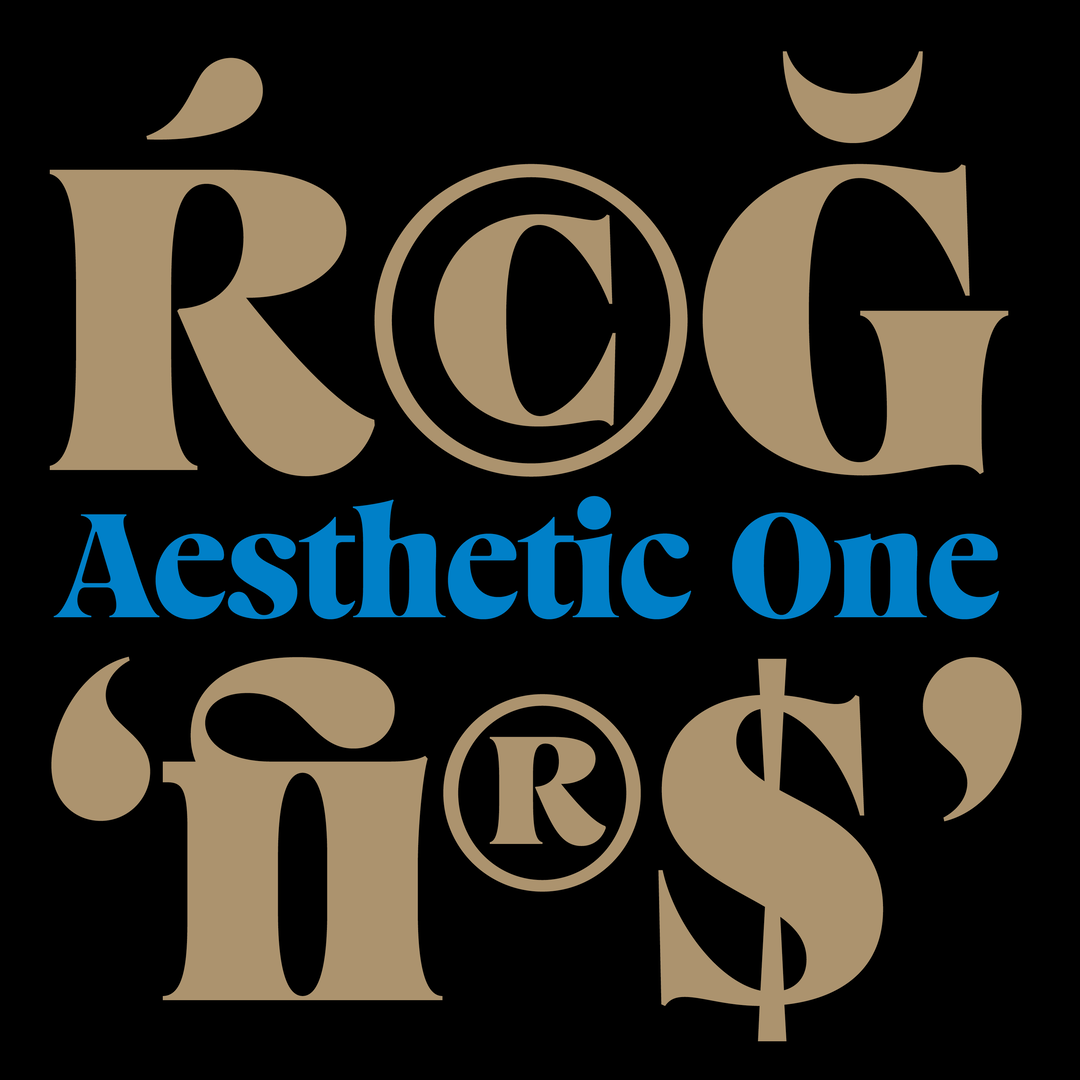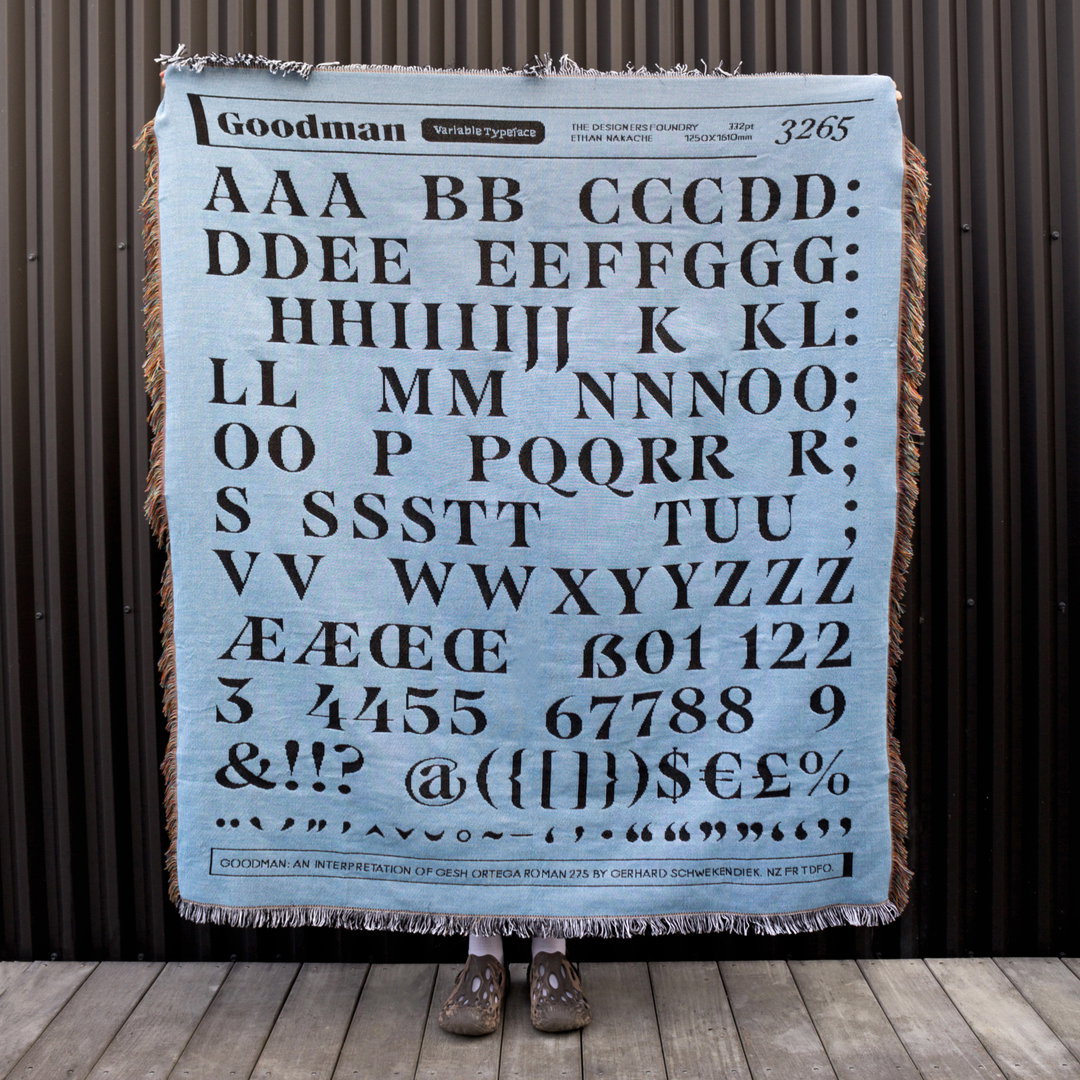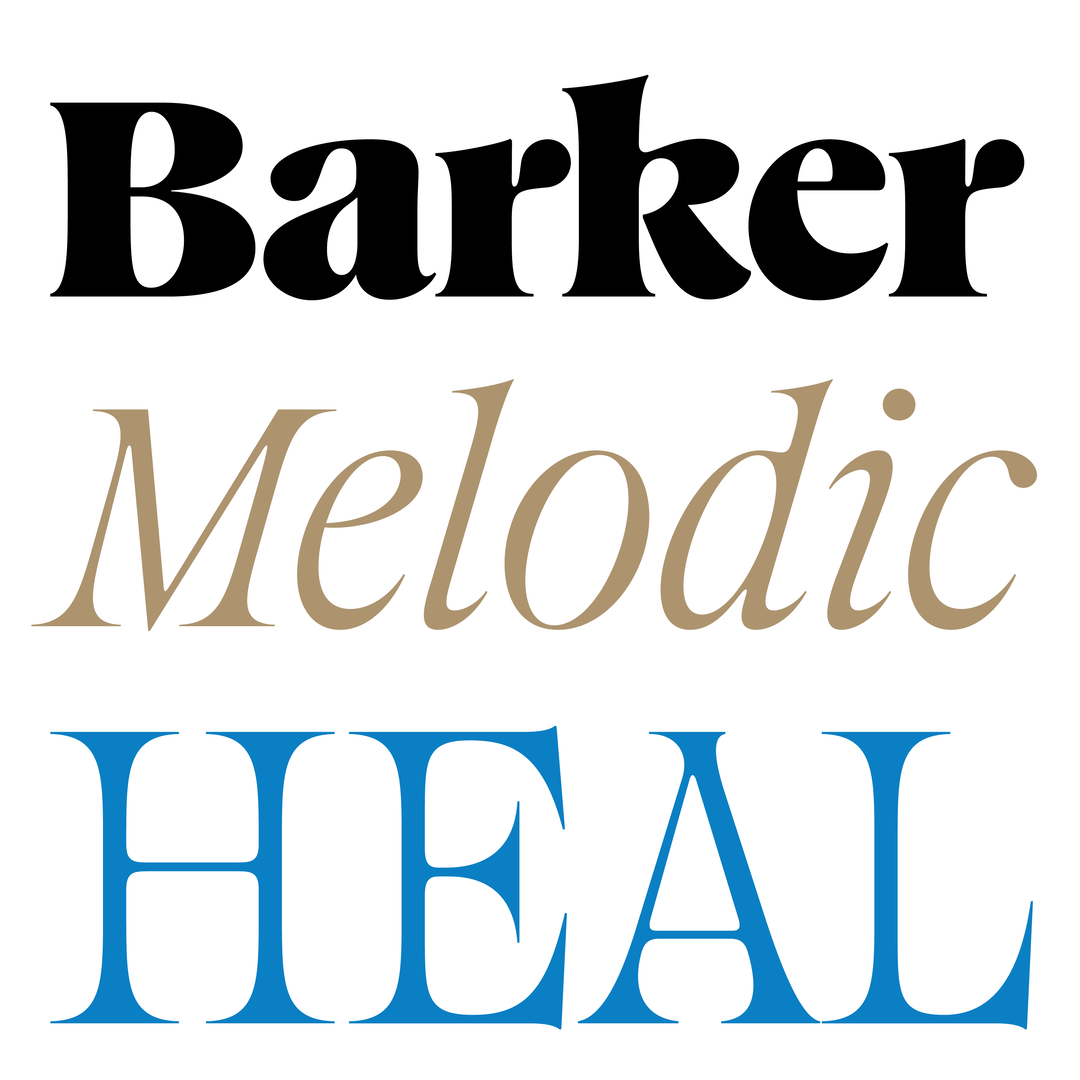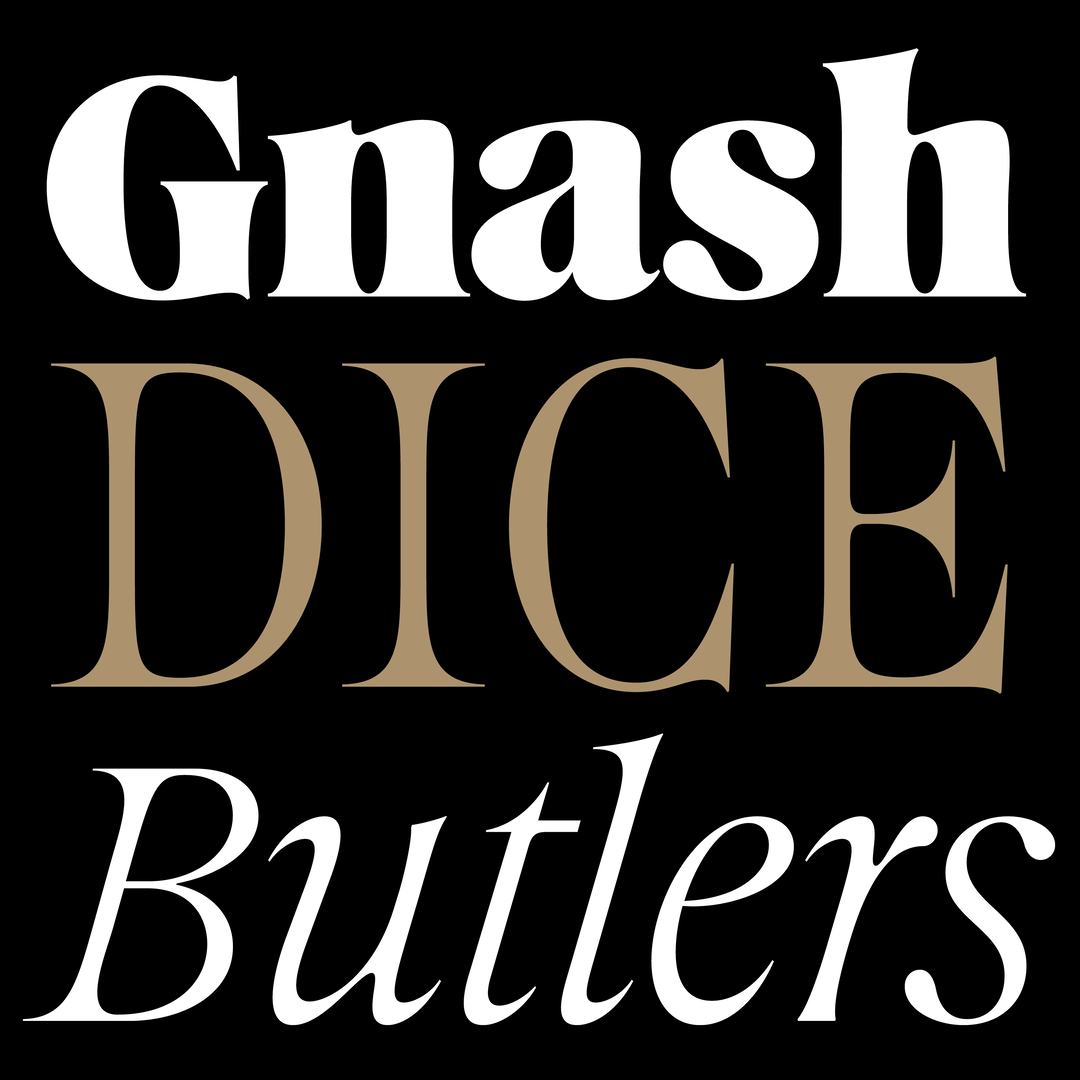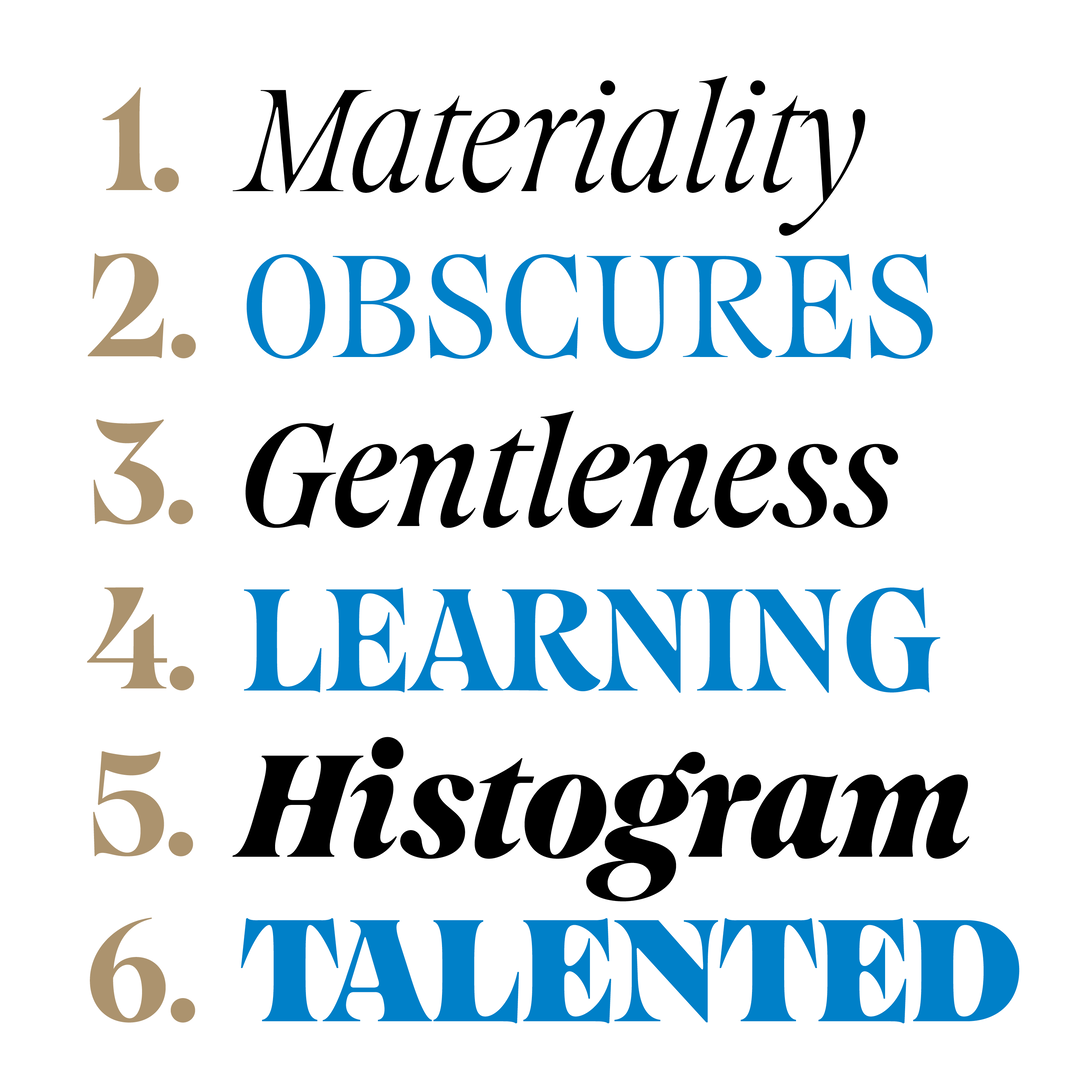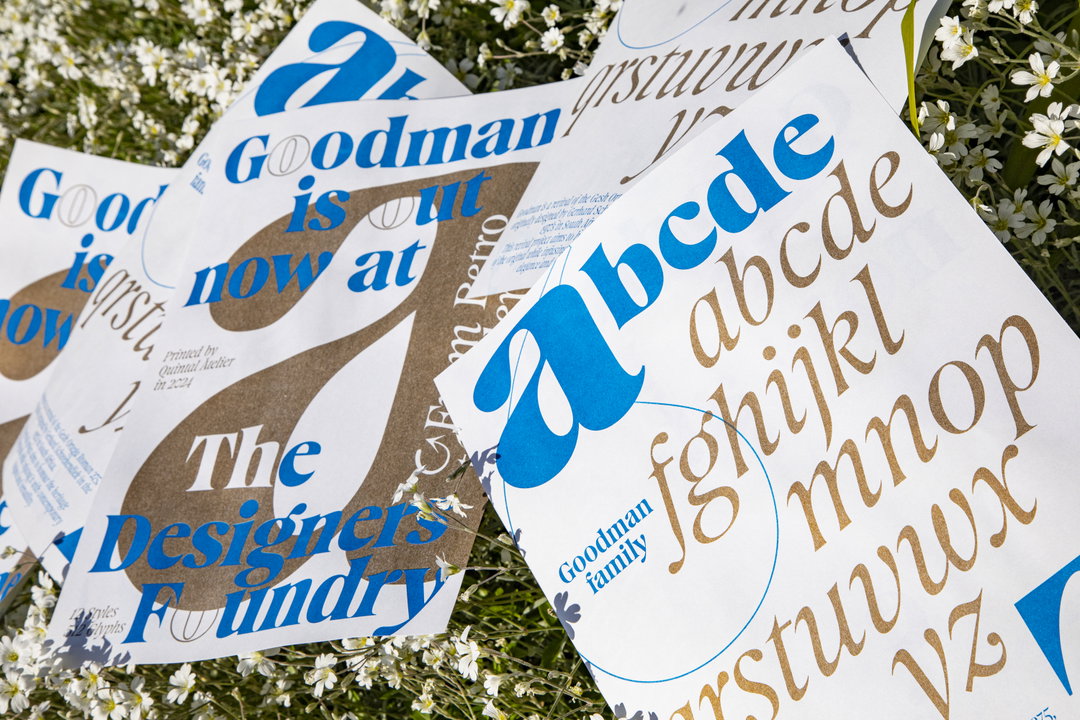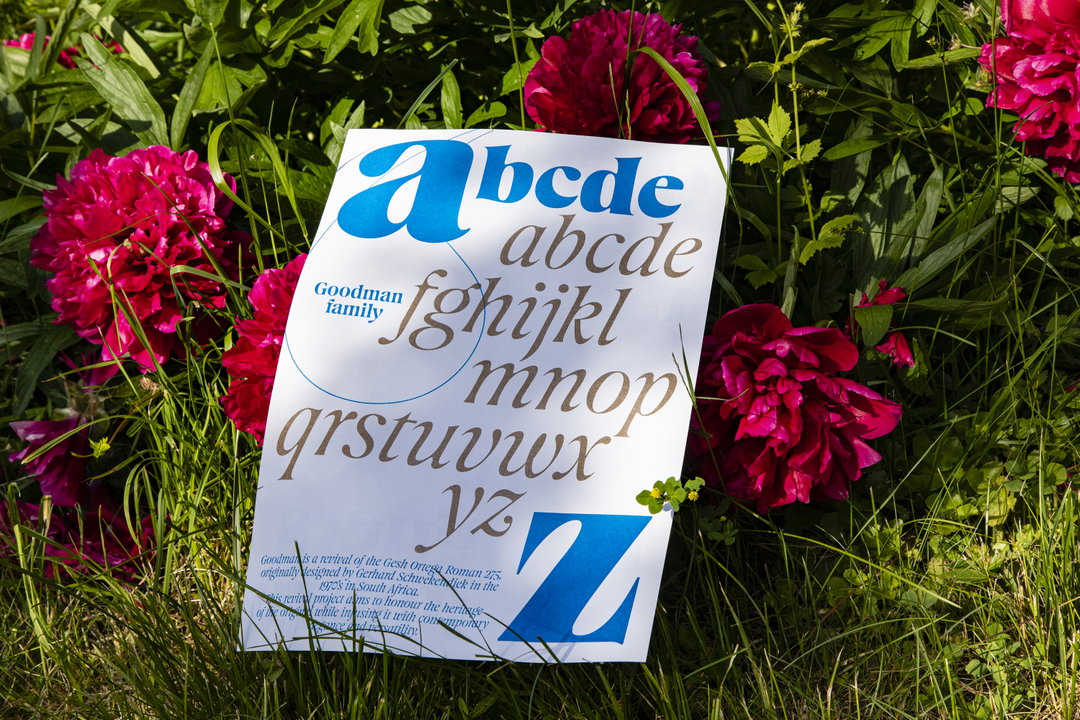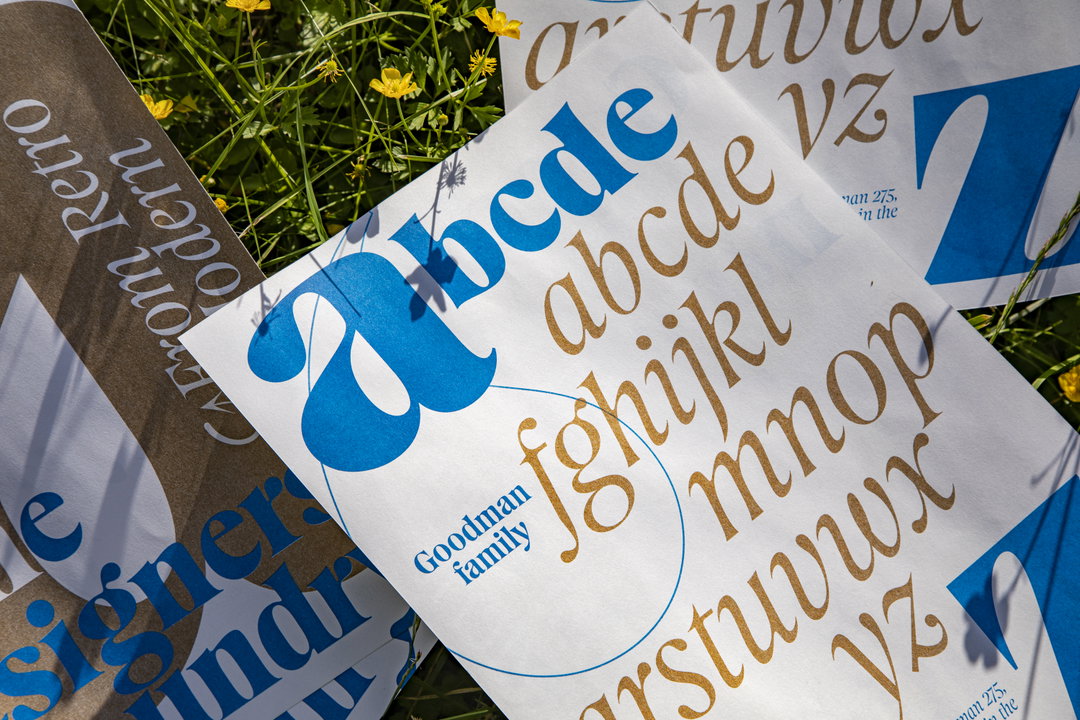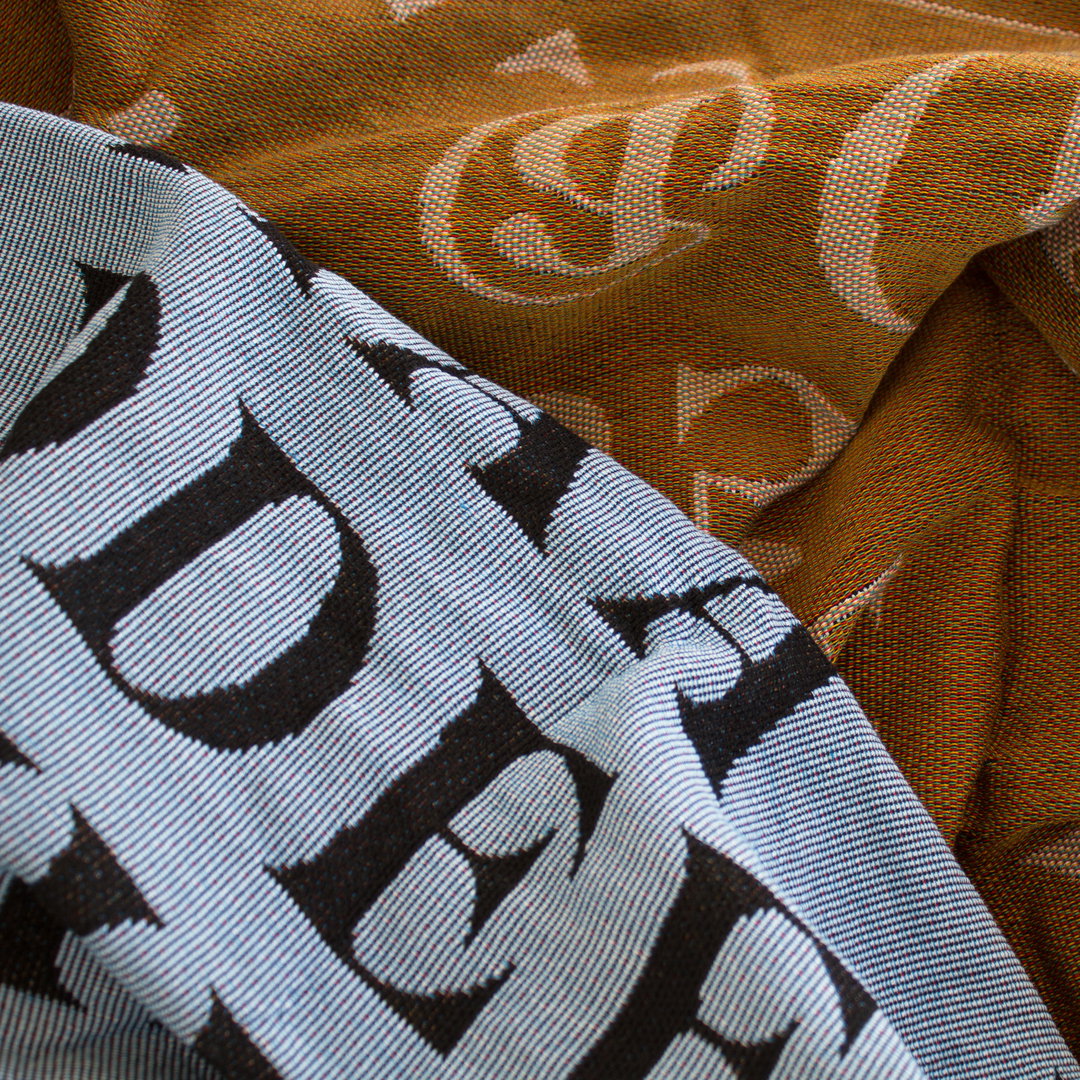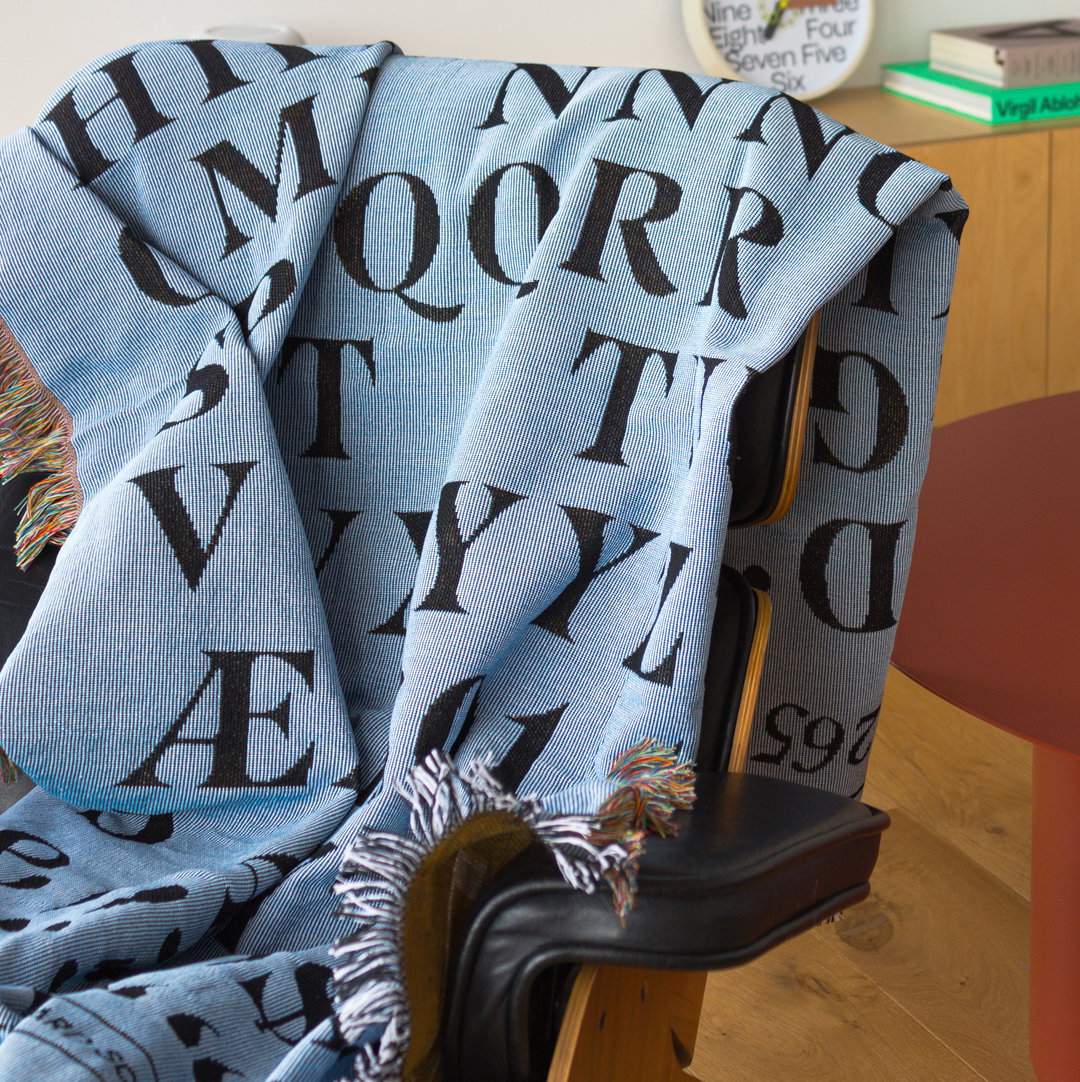
Ethan Nakache brings a 1970s typeface back from the dead, to “add something to the serif genre”
Explaining Goodman, the French designer tells us why reviving a typeface involves a lot of decision making: “You need to focus on what to keep, and what to drop.”
When Ethan Nakache’s friend showed him the Gesh Ortega Roman 275 typeface from 1972, he instantly knew it was “too beautiful to be all but dead”. Originally designed by Gerhard Schwekendiek for Berthold, the usage and documentation of the typeface online is “somewhat scarce”, but Daniel had a vision. “I thought it could really add something to the serif genre if revived. It had everything I love in the serif realm: very generous curves, unusual shapes, yet a very sensible feeling, and even some spiky serifs to complete the package,” he says. With support from The Designers Foundry founder, Daniel McQueen, Ethan has created Goodman, complete with six weights, with matching italics in a variable font format.
The project started over four years ago, at the beginning of the Covid pandemic. Ethan tells us that he wasn’t too much concerned with the commercial aspect to begin with, he was “mostly just glad to have a cool project to work on during that time”. But, Ethan also had to have some determination; Goodman did go against the grain of style back then. “During the design stage, graphic designers were heavily favouring sans-serifs,” says Ethan. “It was an era of high ‘blanding’, but noticing a small resurgence ‘goopy’ and Art Nouveau style serifs motivated me to keep going and get Goodman out there since I had already started on it.” A release of Goodman today is perfect timing, you might say, with the recent reinvigoration of love for serif typefaces.
Ethan says that reviving a typeface rests on one thing in particular: a lot of decision making. “You need to focus on what to keep and what to drop,” he says. “That’s what will give the feeling and shapes of the new typeface. It’s about picking out what you like, what’s still relevant today, and what’s not.” For Ethan, after trailing it with many sketches, it was the influence of the italics in lowercase that stood out, which he then highlighted through the various forms. “In other words, I’d say bring some inspiration and originality to a historical gem,” says Ethan. “It’s your interpretation of something that you already find greatness within.” So why did Ethan want to create so many weights and an italics version? “Versatility.” He continues: “While the source material was just one style, I wanted to enhance upon that and challenge myself by making a display typeface, something that was more usable, flexible, and ultimately going to ensure the longevity of Goodman.”
The Designers Foundry is well known for finding inventive ways of displaying their typefaces. In the past they’ve used clocks and even bricks, and Goodman was no exception – finding its way onto a series of Risograph prints, into a 3D video, and even printed on a blanket. On a practical level, this diversity of presentation is a means of promoting and showing the versatility of the typeface. But it’s also a way of having some fun “after a lot of serious work” and a way of celebrating a four-year project, says Ethan. The blanket evokes a dry-transfer sheet style design, paying homage to the era of Gesh Ortega Roman 275, while the Risograph (made in collaboration with Quintal Print House) was chosen for simply being a format that designers love, and one that’s good for experimenting with. However, the 3D video – made by Anthony Hernandez – stands in contrast to the type of physical products. “That was just a bit of selfish fun to do something quirky and slightly weird,” says Ethan. “It’s designed to be the display banner on The Designers Foundry website, just something a bit more than the usual 2D jpg image we might have done.”
While Ethan had no commercial considerations at the beginning of Goodman, now he has a good feeling it would work well in numerous contexts: fashion, luxury brands, music projects or event film posters. “But I have no control over that. That’s what’s beautiful about type design,” he ends. “After those countless hours working on those shapes, it’s time for others to play with them now!”